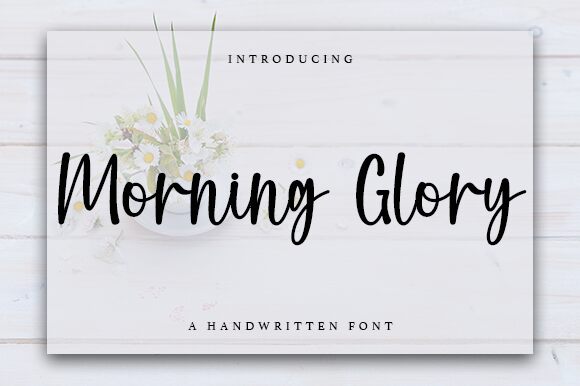
Morning Glory, crafted by the creative minds at Wahyu Studio, encapsulates the essence of personal touch within its semi-light handwritten style. Its flowing, organic lines and casual elegance lend a sense of intimacy and authenticity to any project. The font's visual charm lies in its delicate balance of whimsy and legibility, making it an admirable choice for invitations, branding, or editorial designs seeking to convey warmth and approachability.
The aesthetic appeal of Morning Glory is immediate; each character is imbued with a distinct personality that resonates with the viewer. Its semi-light weight strikes a harmonious note – not overly imposing yet assertive enough to grab attention. This versatile font not only promises to uplift the design narrative but also ensures readability across various platforms.
Whether you're aiming for an artisanal vibe on your website or adding a humanistic flair to printed collateral, Morning Glory stands out as an inspired selection that will infuse your creative endeavors with a sense of crafted sophistication.